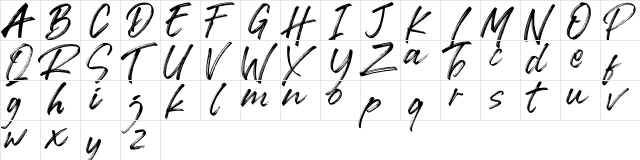
Rallian Regular
| Designer | Letter SiroMuhammad Sirojuddin - Jogjakarta 2019 |
Design Context for Rallian Typeface
Rallian is a composed and adaptable typeface that performs quietly and consistently across a wide range of design contexts.